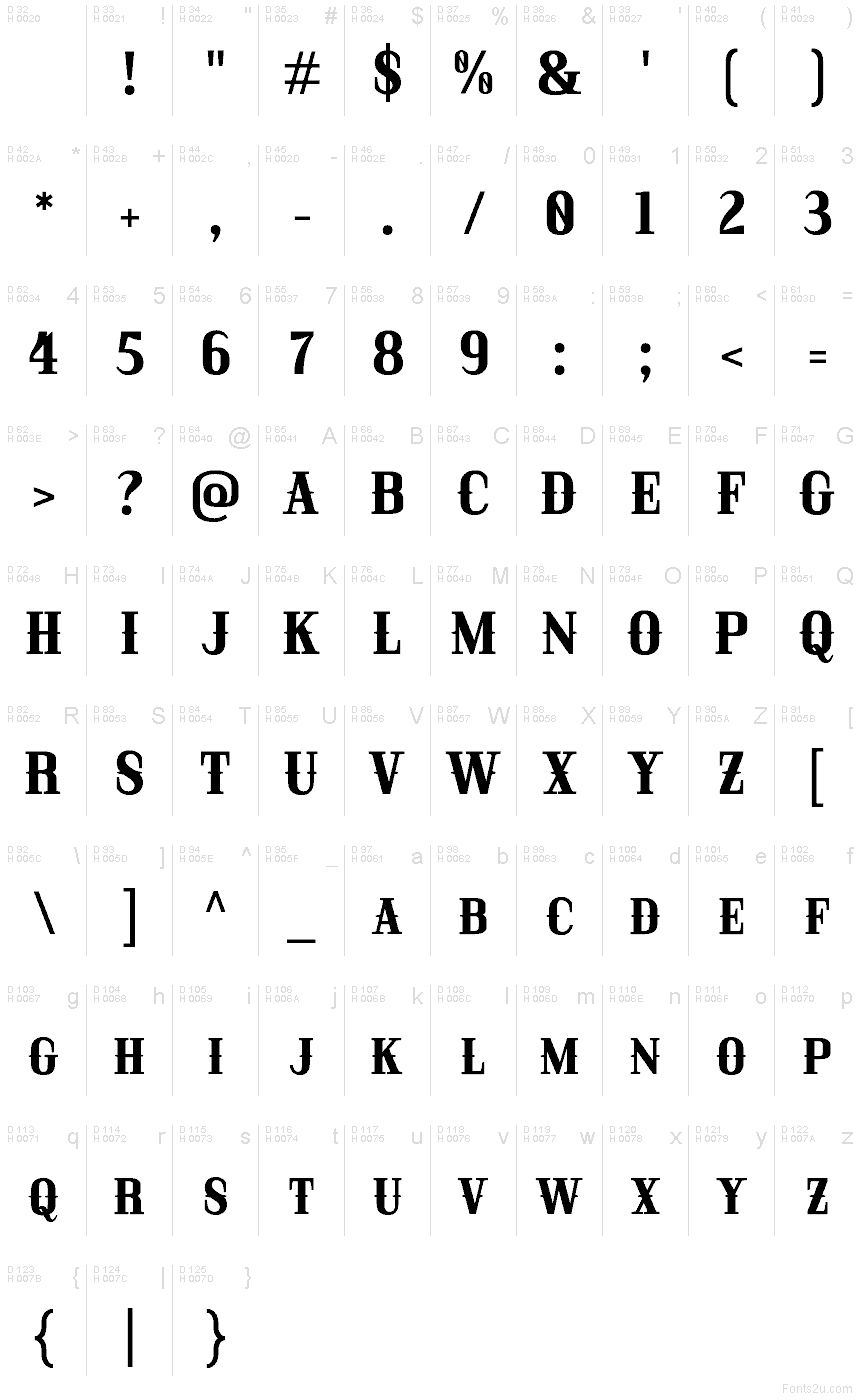
Deadtoast Demo
Deadtoast font from Faqih Fawaji is a western display font with many interesting elements to please the eye. The bold font shows a vintage-inspired and classic style that grabs attention with each letter. Enjoy its authoritative, impactful, and strong presence as you type unique texts that will stand out.
The free font can be used in movie titles, games interfaces, book covers, or poster designs. It can also style your website headers for entertainment blogs and magazines or your social media accounts. Other users include album/music posters, flyers, stickers, logos or apparel branding ideas.